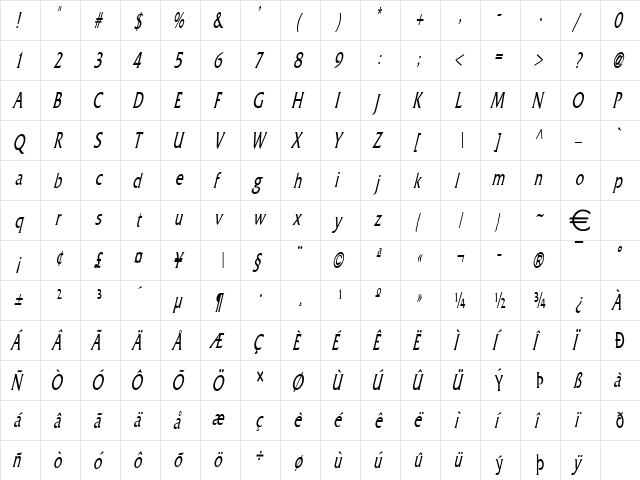
FrancoThin Italic
Design Context for FrancoThin Typeface
FrancoThin offers clean, dependable letterforms without strong stylistic allegiance, making it a practical choice for designers who need flexibility. The slanted form adds forward momentum and visual energy. The delicate stroke weight brings airiness and refinement to layouts.
Pro Tip: Use FrancoThin for emphasis, pull quotes, and subheadings where its slanted energy can add rhythm to the layout.